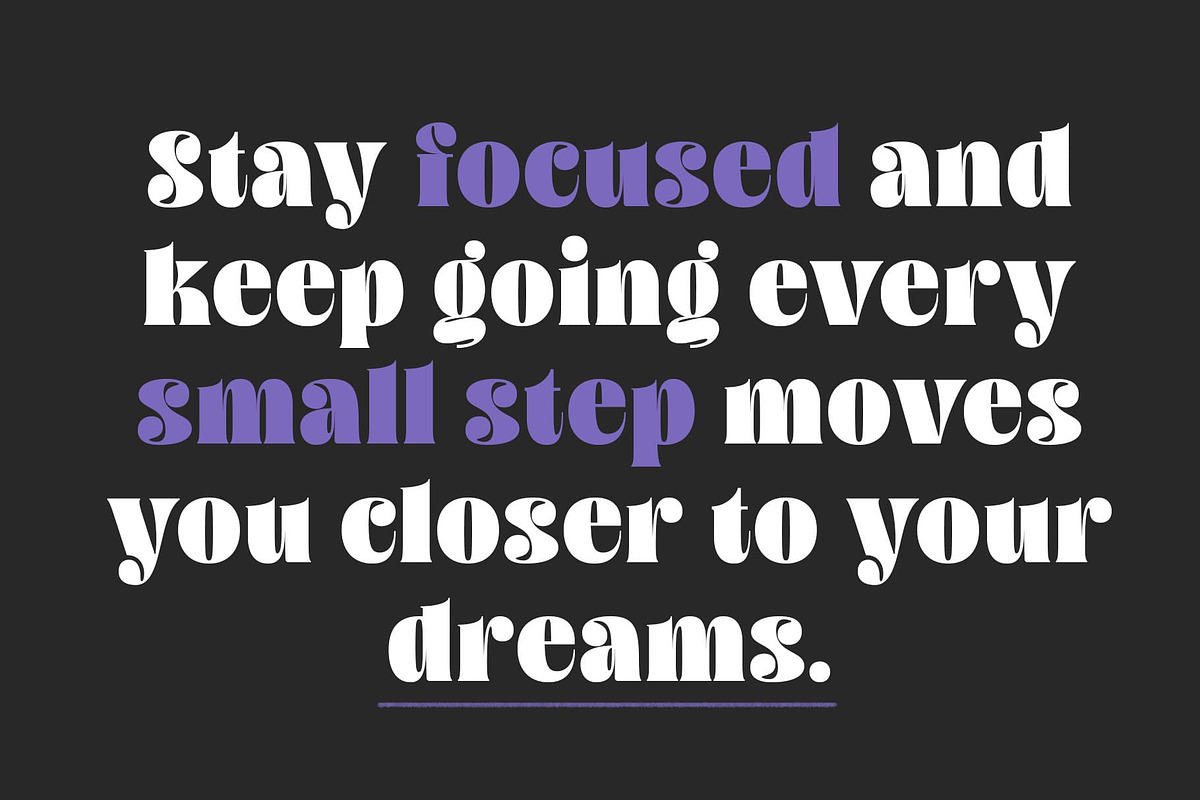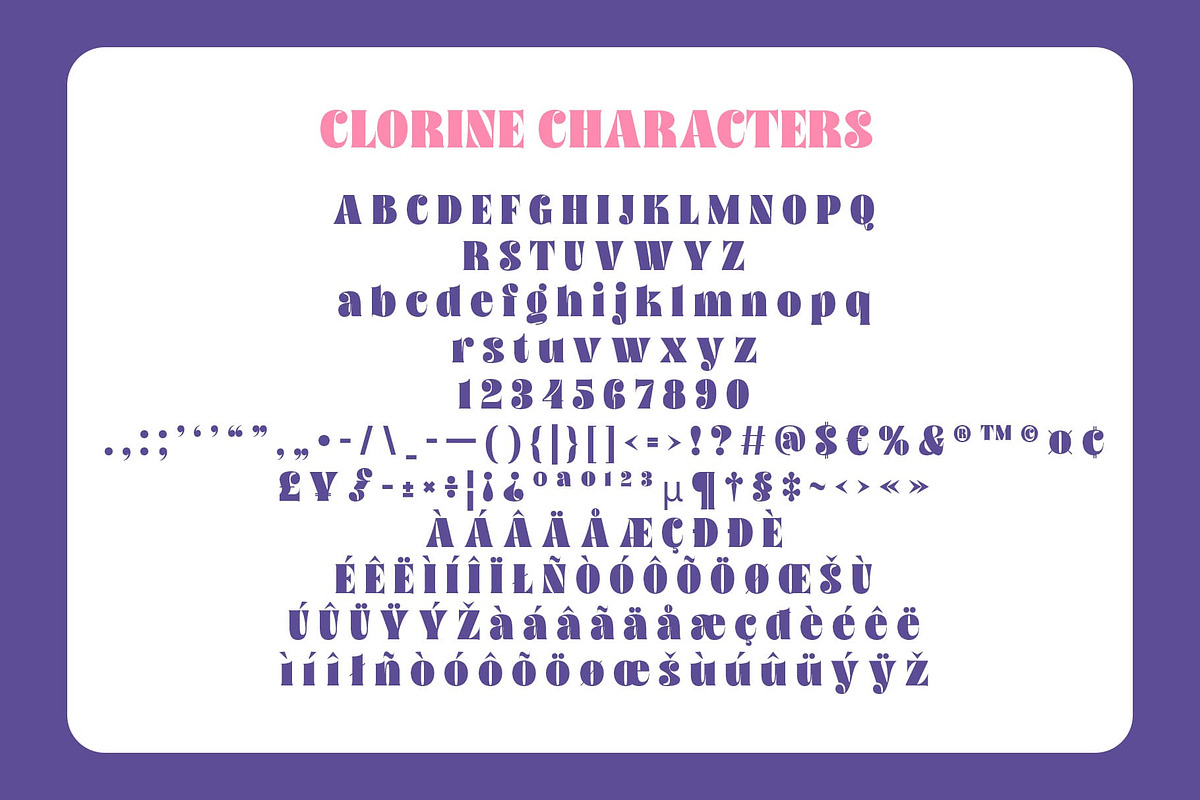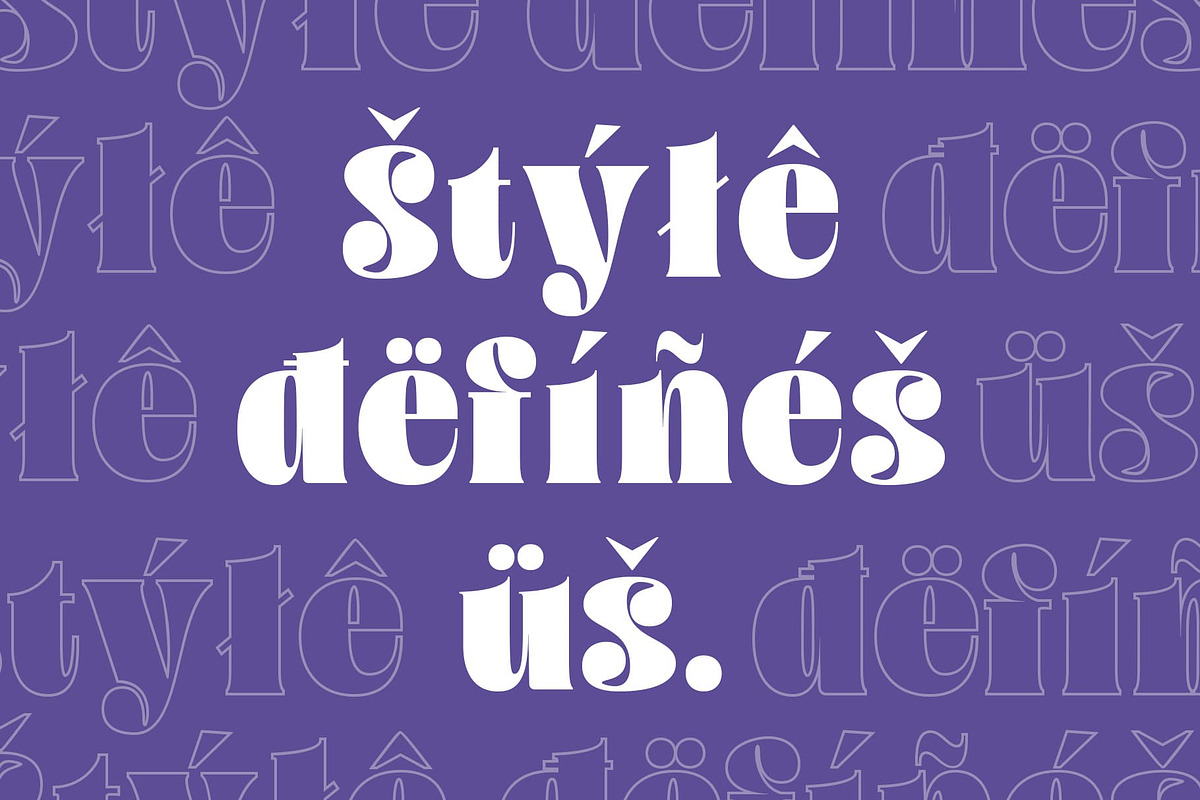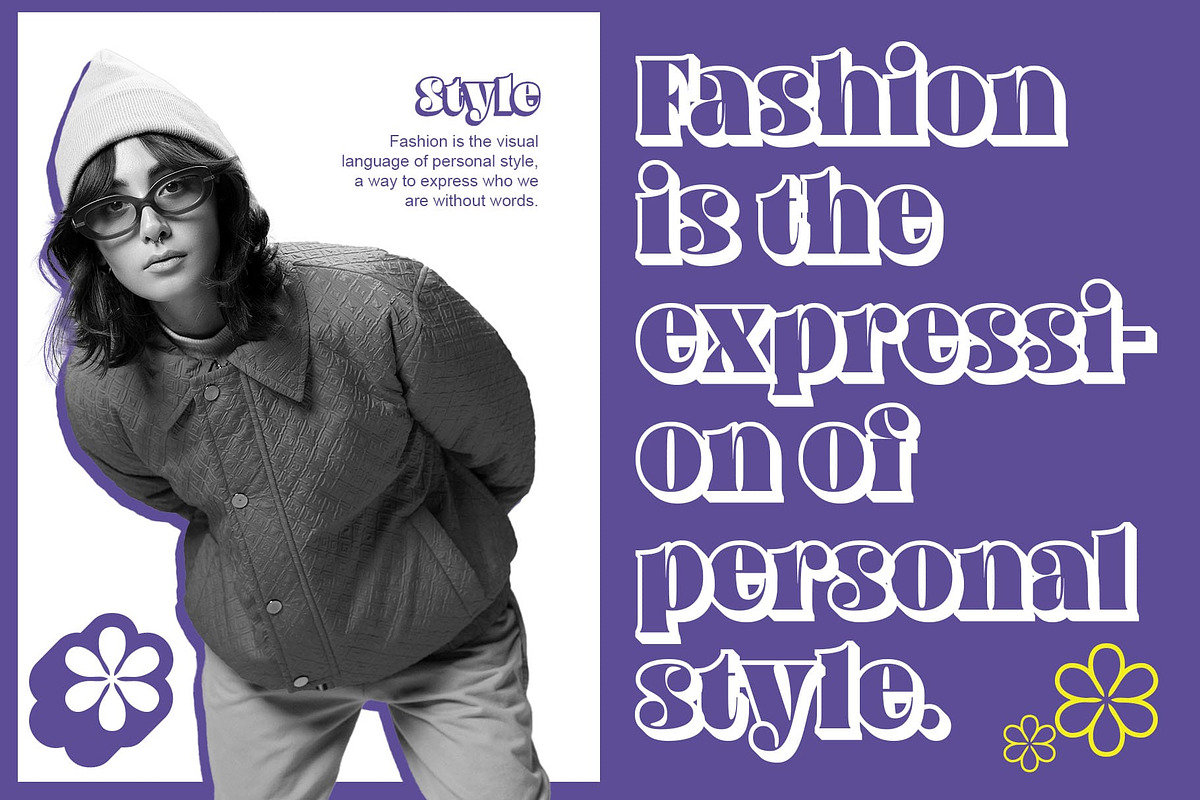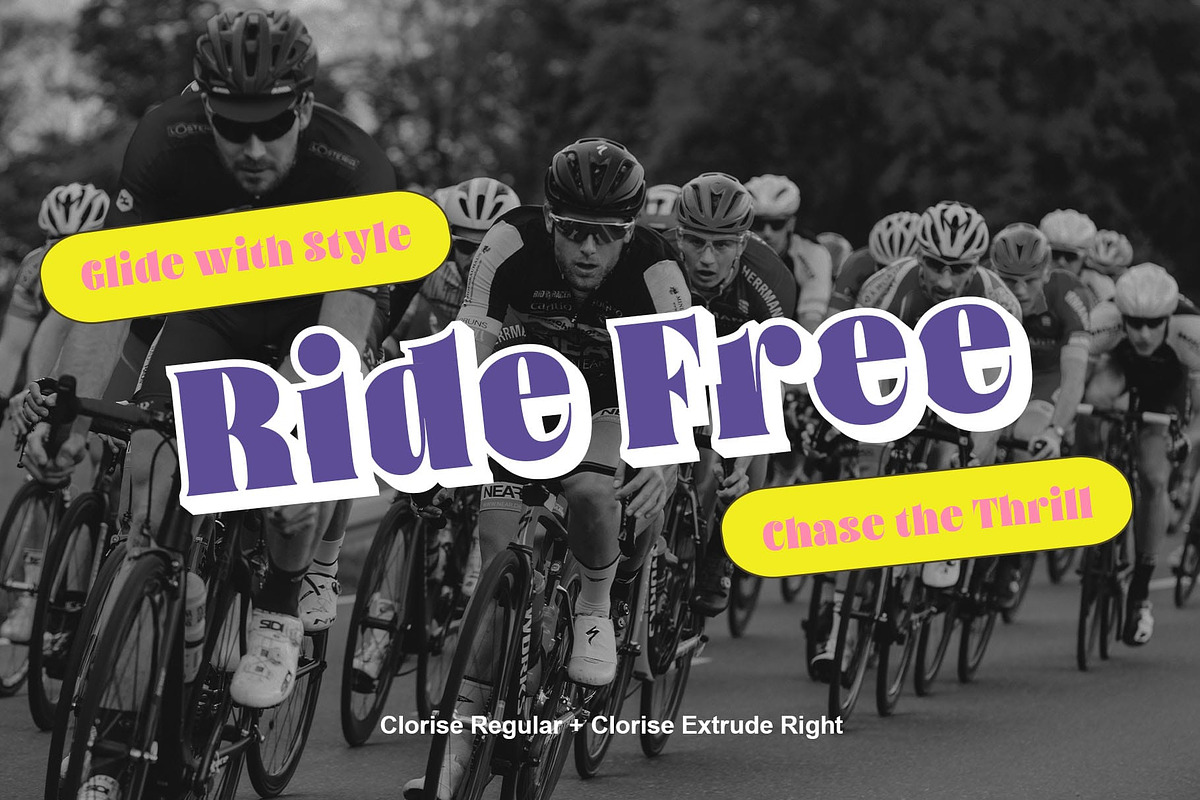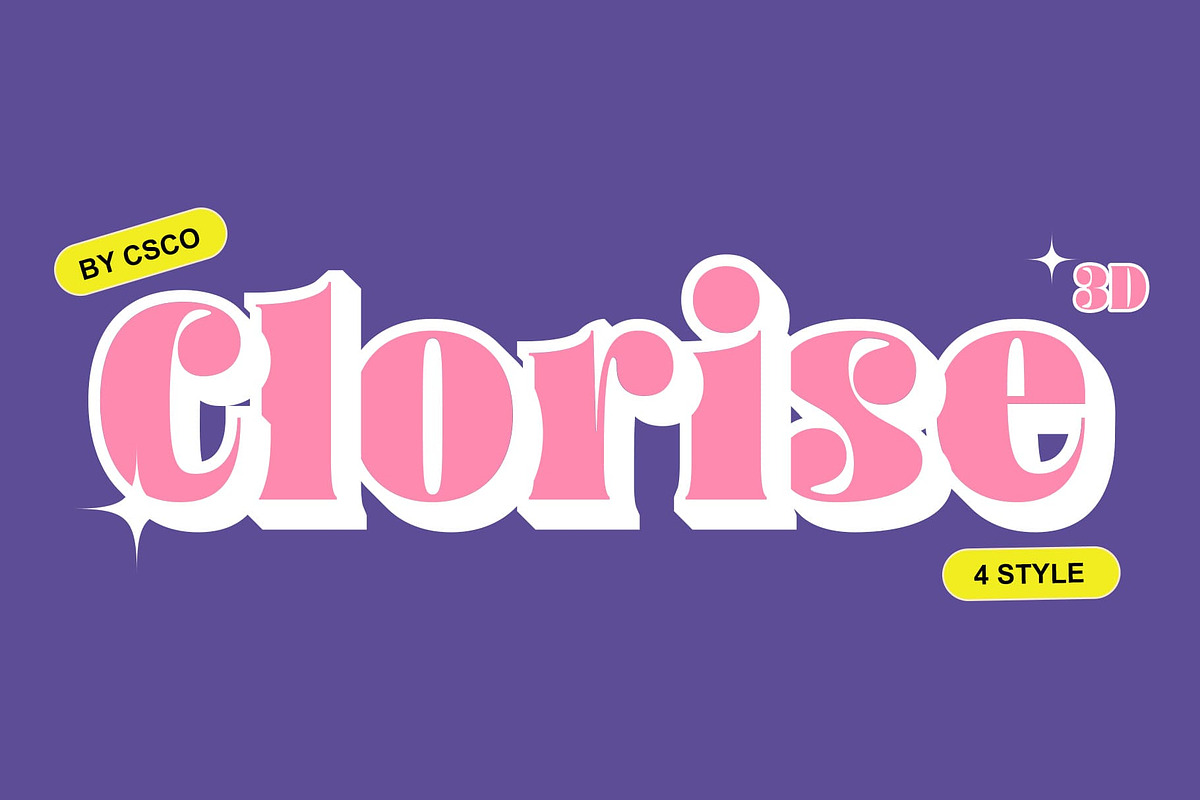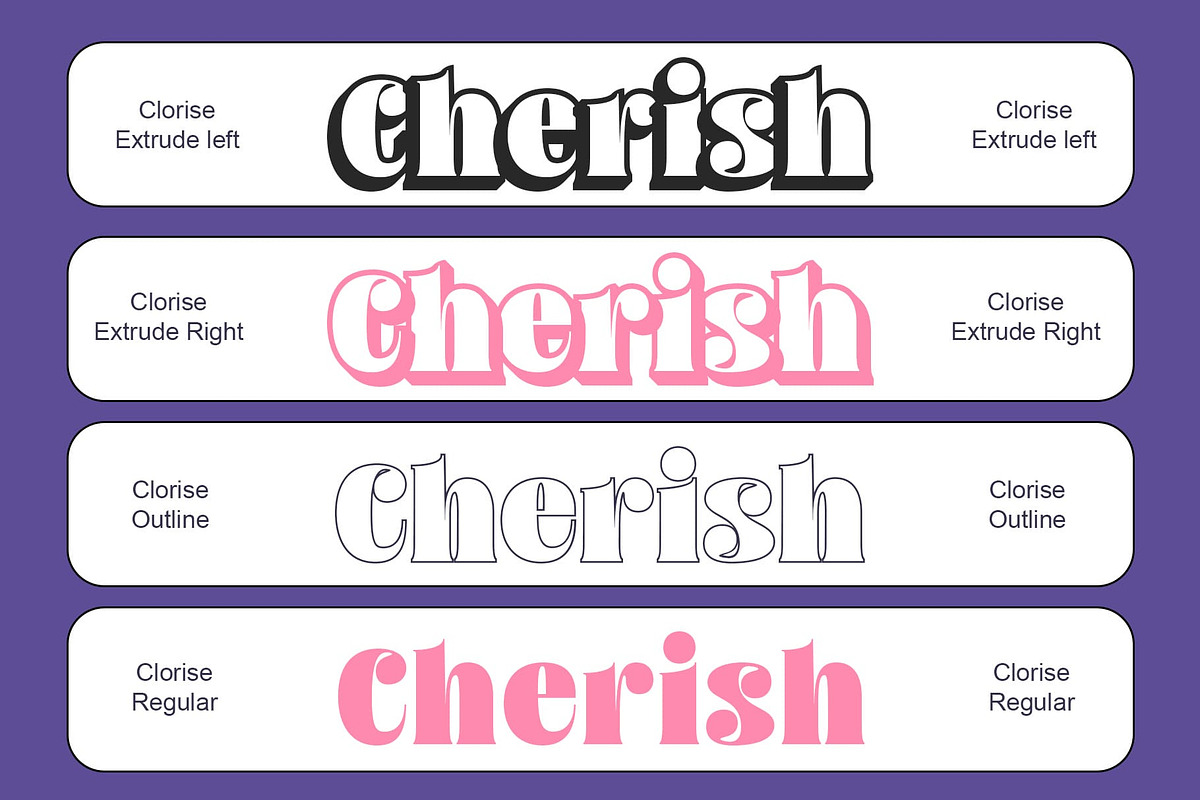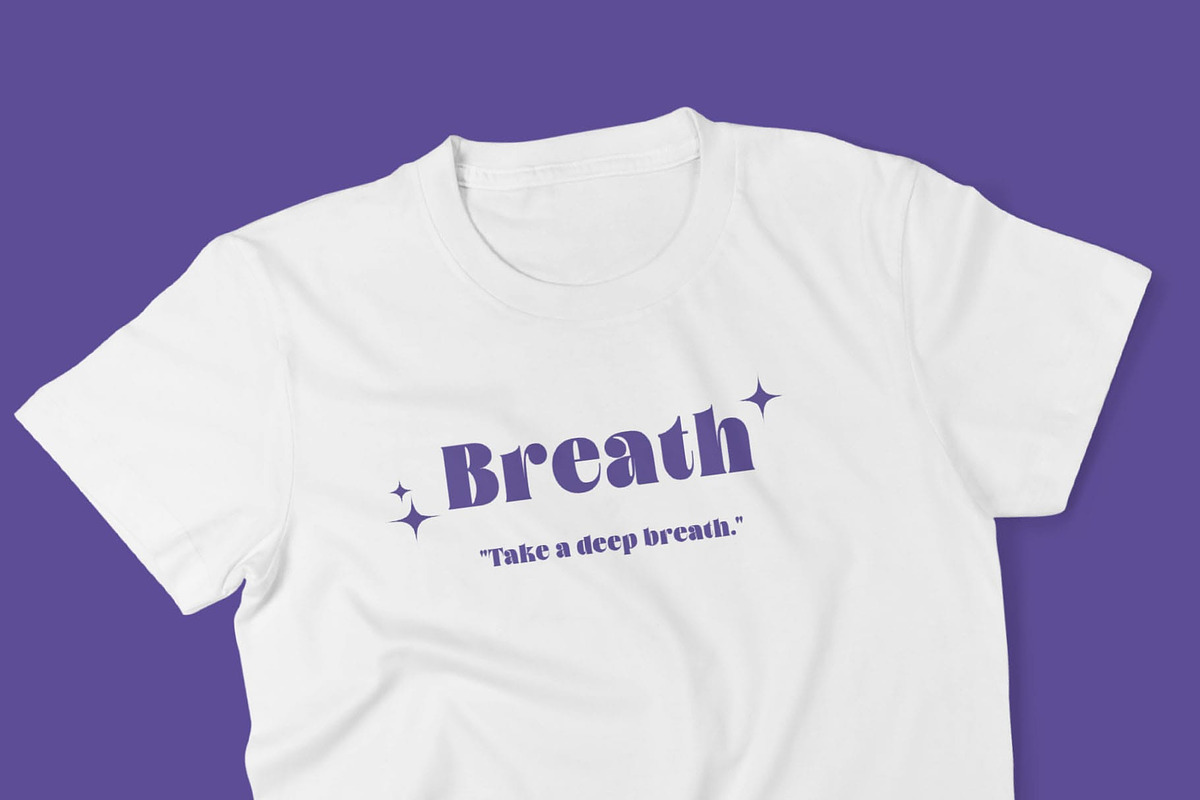
Clorise 3D
Clorise 3D Font – Bold Serif with 80s Energy
Vibrant 80s Aesthetic with Bold Serif Design Clorise 3D is a bold serif font that captures the vibrant spirit of the 1980s with its distinctive thick shapes and dynamic design. The strong, geometric forms make a statement, offering a perfect blend of vintage and modern elements. Its boldness and structure evoke the energy and excitement of the 80s, making it ideal for projects that celebrate nostalgia with a contemporary edge.
3D Effect for Depth and Impact The 3D effect of Clorise 3D adds a sense of depth and dimension, giving the font a striking visual presence. This effect enhances its bold form, making each letter stand out with more energy and volume. Whether used in headlines or large-scale designs, the 3D feature brings an extra layer of excitement, perfect for designs that need to make an immediate impact.
Perfect for 80s-Inspired Projects Ideal for posters, branding, promotional materials, and more, Clorise 3D brings the bold, daring vibe of the 80s to any project. Its strong visual impact is perfect for designs that need to evoke the energetic, playful, and futuristic spirit of the era. Whether for retro-themed events, nostalgic branding, or eye-catching advertisements, Clorise 3D ensures that your design stands out with a unique and contemporary flair.
- Clorise Regular
- Clorise Outline
- Clorise Extrude Right
- Clorise Extrude Left